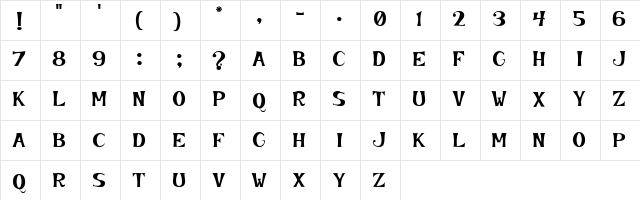
KookyKaps Regular
Design Context for KookyKaps Typeface
KookyKaps offers clean, dependable letterforms without strong stylistic allegiance, making it a practical choice for designers who need flexibility.